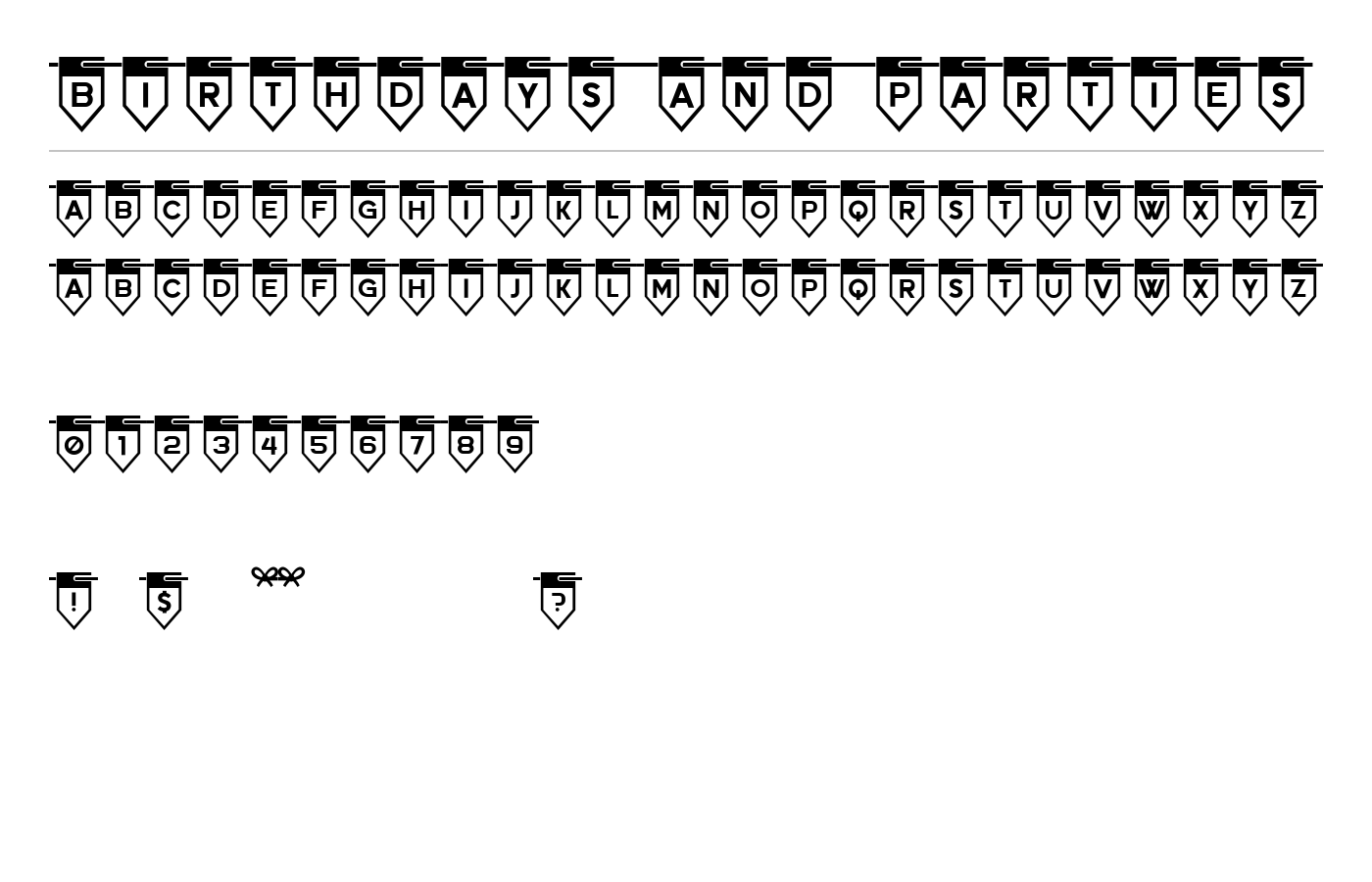
Birthdays and Parties is a playful, decorative font featuring uppercase letters designed as hanging pennant banners, evoking a festive and celebratory feel. Its bold, geometric shapes and clean lines make it ideal for party invitations, event posters, and any design aiming to capture a joyful, lively atmosphere. This unique style works best in display contexts where a fun, cheerful mood is desired.
Birthdays and Parties Font
About Birthdays and Parties Font
| Font family | Birthdays and Parties Font |